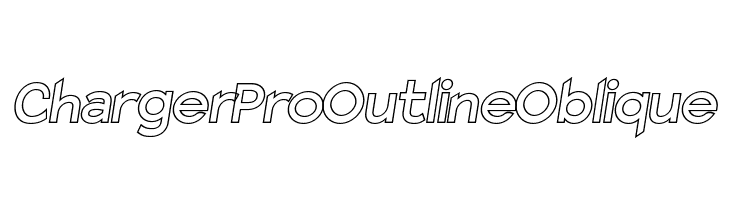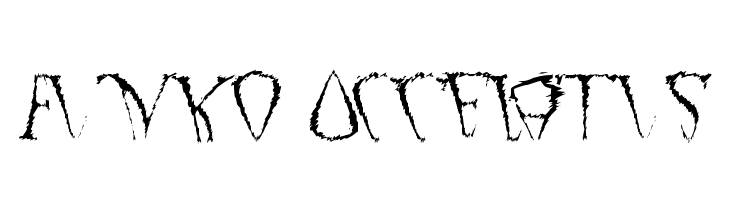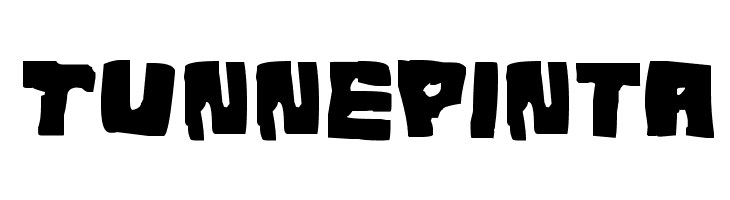
( Matias Romero - matiasromero.deviantart.com )
A modern, geometric font with clean lines and uniform stroke width.
( Fonts by MJType )
A bold, rounded font with a playful and friendly style.
A bold, angular font with a futuristic and dynamic style.
( Fonts by junkohanhero )
A hand-drawn, rustic font with a distressed and organic appearance.
A playful, bold font with rounded, thick strokes and a hand-drawn feel.
( Fonts by www.kimberlygeswein.com - Kimberly Geswein )
A playful, handwritten font with a casual and friendly style.
A bold, expanded, and italicized font with a distressed, grunge-like texture.
A bold, distressed font with a 3D shadow effect, perfect for urban-themed designs.